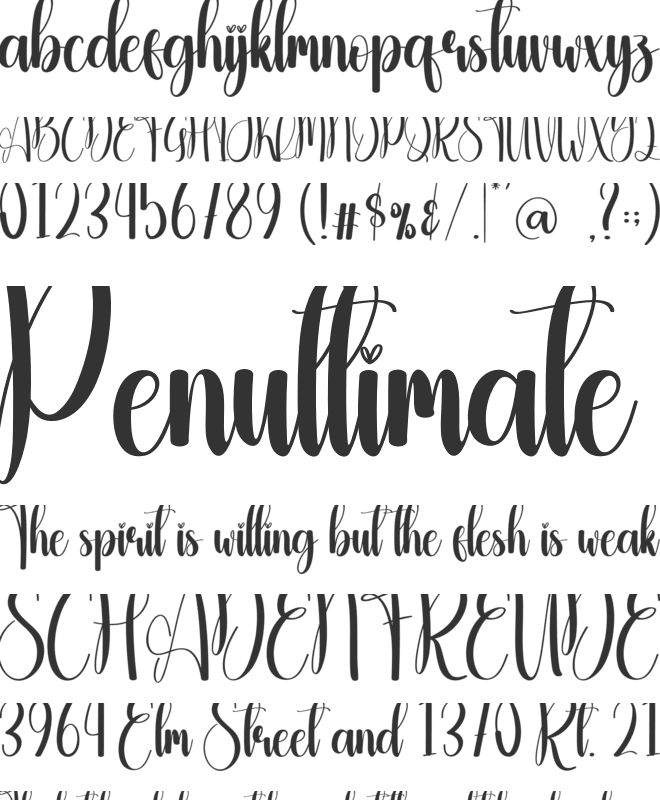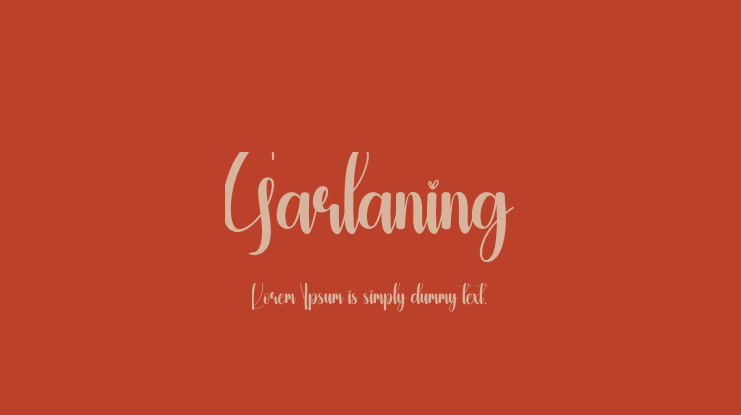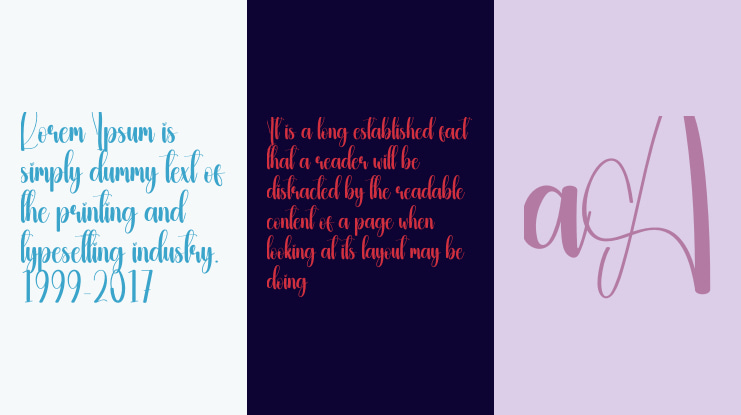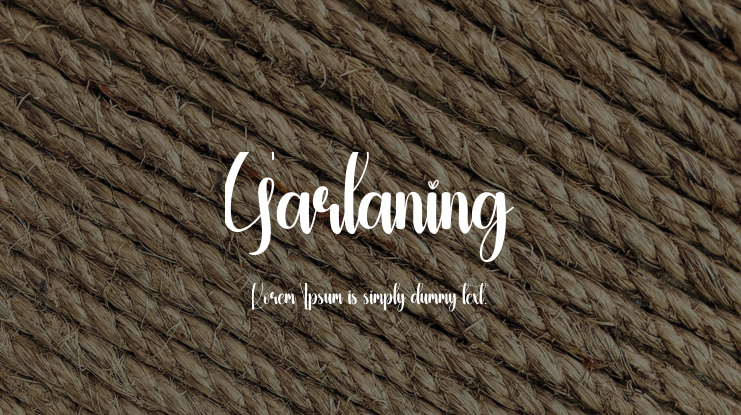
Garlaning Font
The latest style letters are perfect for wall displays, wedding invitations, social media post logos,
and any project that requires tasteful handwriting.
Garlaning font preview